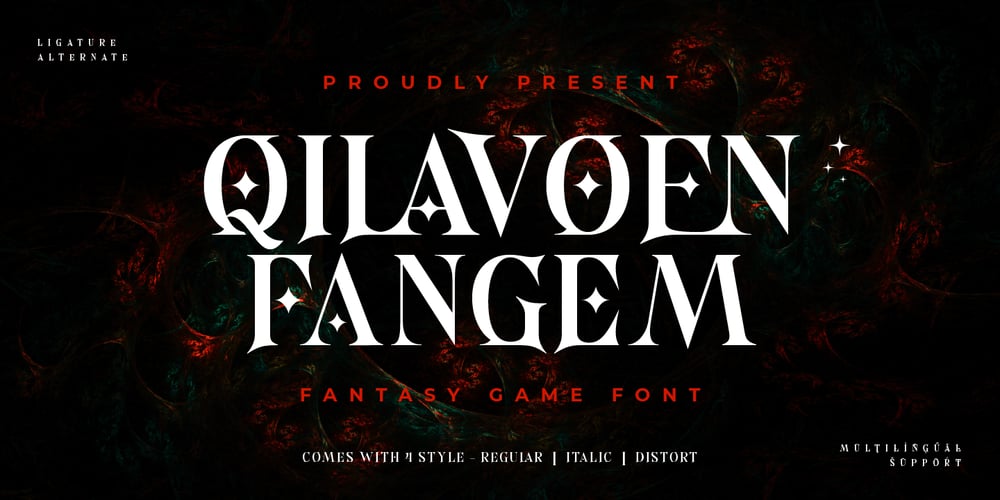
Qilavoen Fangem Font Family was designed by Rozikan and published by Twinletter. Qilavoen Fangem contains 4 styles and family package options. Welcome to the world of gaming with Qilavoen Fangem, a display font specially designed to express the passion and excitement of the world of video games. Qilavoen Fangem combines strong display elements with a dynamic gaming touch, creating an epic and stylish display.Each Qilavoen Fangem letter reflects strength and a spirit of adventure, with a sturdy and modern display design. This font is ideal for use in game titles, logos, or other design elements that require a unique and memorable typographic identity.Qilavoen Fangem’s uniqueness lies in its ability to deliver a thrilling gaming atmosphere with clarity and visual appeal. From action games to fantasy RPGs, this font is ready to provide a striking and engaging typographic identity.With Qilavoen Fangem, bring a thrilling gaming feel to your designs. Let each letter be a visual travel guide through your game world, showcasing engaging design elements and inviting players to explore the world you create.